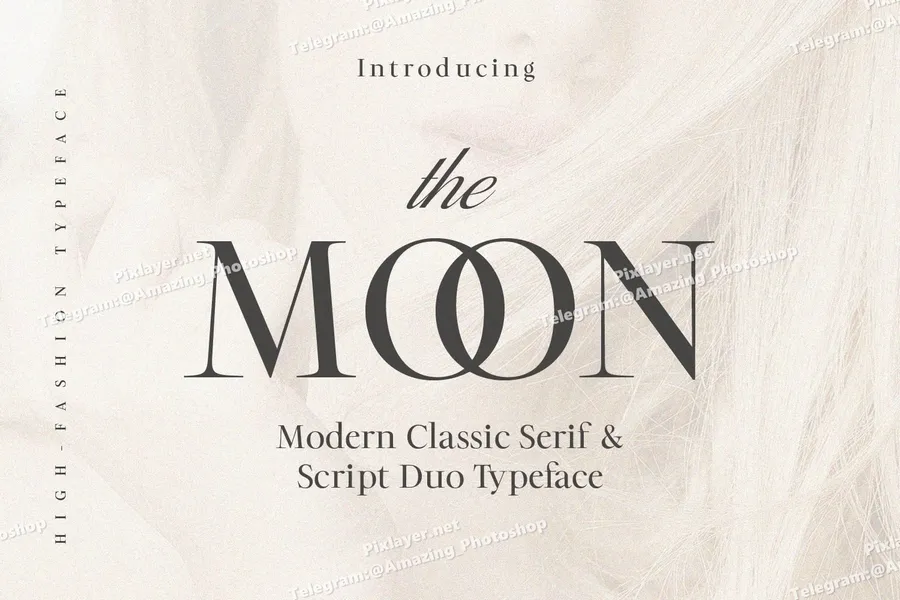
The Moon – Modern Classic Serif & Script Font Duo
The Moon is a modern & classic typeface duo that combines a timeless serif with an elegant calligraphic script. Inspired by editorial elegance, high-end fashion, and romantic wedding stationery, this font is ideal for luxury branding, packaging, magazine layouts, and sophisticated logo designs.
Serif font with full uppercase & lowercase alternates
Flowing script font with beautiful ligatures
Stylistic sets & alternates included